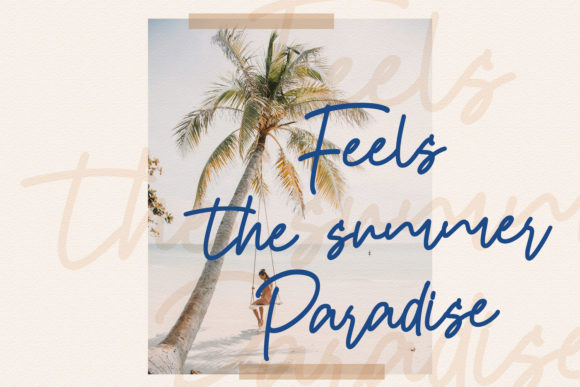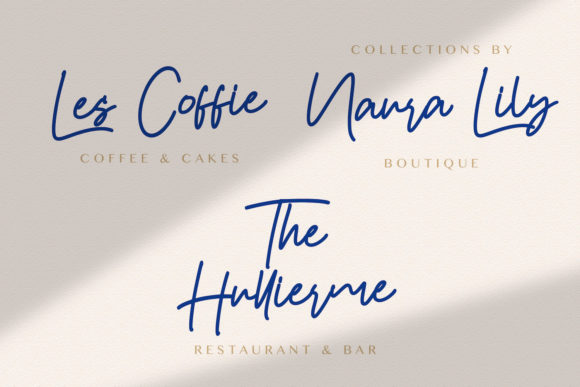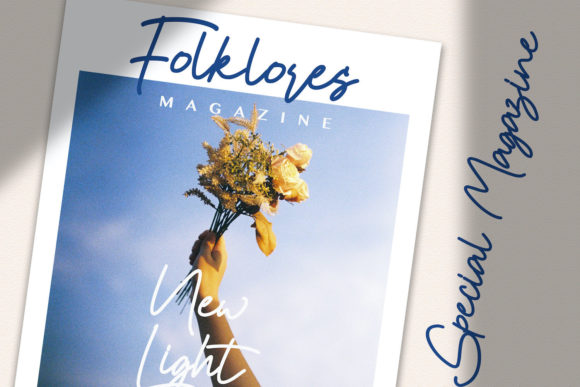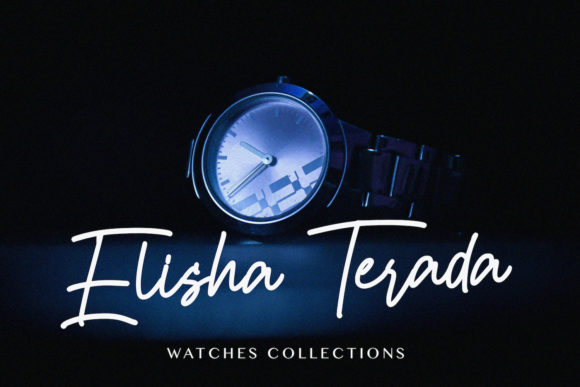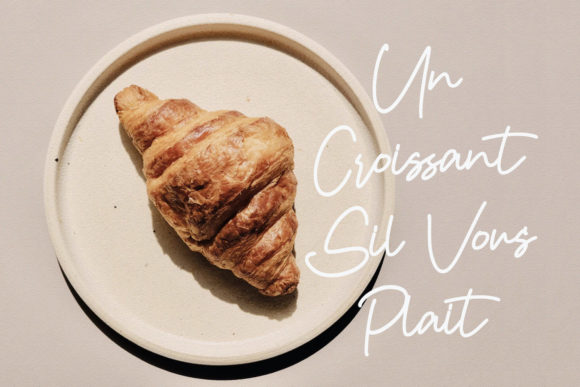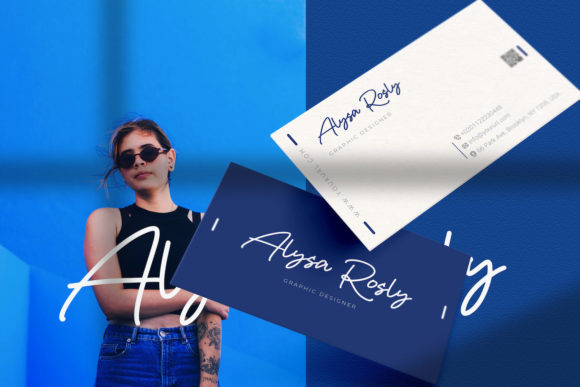
Hany Petter Font: Elevate Your Designs with Elegance and Class
Are you tired of using the same old fonts in your designs? Look no further than the Hany Petter font, a lovely and relaxed script font that exudes elegance and class. This beautifully crafted font is perfect for designers and crafters who want to add a touch of sophistication to their work.
The Story Behind Hany Petter Font
Hany Petter font was particularly designed for those who need a beautiful and refreshing look to their designs. The font’s creator aimed to produce a typeface that would be both elegant and easy to read, making it perfect for a wide range of design applications. Whether you’re working on a logo, branding materials, or digital content, Hany Petter font is sure to impress.
Key Features of Hany Petter Font
So, what makes Hany Petter font so special? Here are some of its key features:
- Elegant and Classy: Hany Petter font boasts a sophisticated and refined aesthetic that’s perfect for high-end designs.
- Relaxed and Friendly: Despite its elegance, Hany Petter font also has a relaxed and friendly vibe, making it suitable for a wide range of design applications.
- Beautifully Crafted: The font’s creator has paid close attention to detail, resulting in a beautifully crafted typeface that’s a joy to use.
- Easy to Read: Hany Petter font is designed to be easy to read, even at small sizes, making it perfect for body text and captions.
Uses for Hany Petter Font
Hany Petter font is incredibly versatile and can be used in a wide range of design applications, including:
- Logo Design: Create a stunning logo for your business or brand with Hany Petter font.
- Branding Materials: Use Hany Petter font to create professional-looking branding materials, such as business cards, brochures, and letterheads.
- Digital Content: Add a touch of elegance to your digital content, such as blog posts, social media graphics, and email newsletters.
- Stationery: Create beautiful stationery, such as wedding invitations, greeting cards, and gift tags.
Tips for Using Hany Petter Font
Here are some tips for getting the most out of Hany Petter font:
- Pair it with a Sans-Serif Font: Pair Hany Petter font with a sans-serif font, such as Arial or Helvetica, to create a beautiful contrast.
- Use it for Headings: Use Hany Petter font for headings and titles to add a touch of elegance to your designs.
In conclusion, Hany Petter font is a beautiful and versatile script font that’s perfect for designers and crafters who want to add a touch of elegance and class to their work. With its elegant and relaxed aesthetic, beautifully crafted design, and ease of use, Hany Petter font is sure to become a favorite in your design arsenal. So why not give it a try and see the difference it can make in your designs?